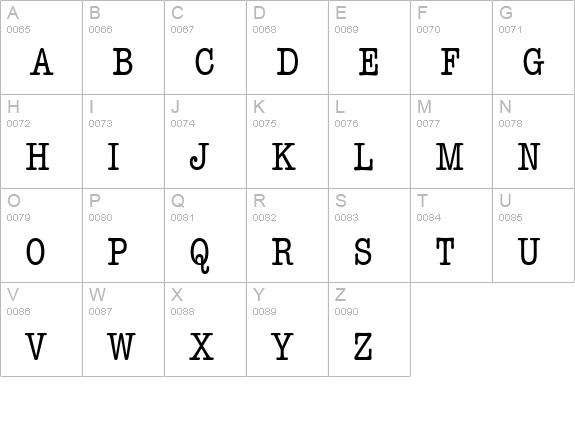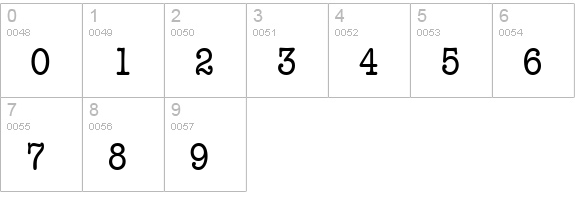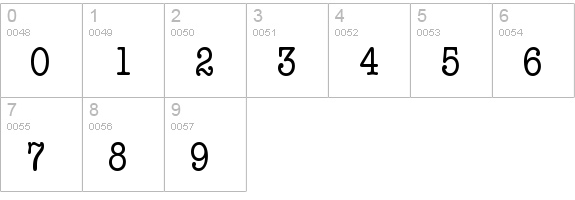
Keyboard Condensed SSi Condensed Font Details
Keyboard Condensed SSi Condensed is a distinctive, condensed-width variant in the Keyboard typeface family \xE2\x80\x94 well suited to design and typography projects.
Introducing Keyboard Condensed SSi Condensed font, the perfect choice for those seeking a sleek and streamlined typographic solution. This condensed typeface exudes an air of sophistication and modernity, making it ideal for various design projects such as branding, headlines, and advertising. Keyboard Condensed SSi Condensed font boasts a unique blend of elegance and versatility, making it suitable for a wide range of applications. Its condensed nature allows for maximum impact and readability, while maintaining a sense of refinement and professionalism. This font's sleek and minimalist design ensures that it effortlessly catches the eye, making a bold statement without overwhelming the viewer. Its clean lines and balanced proportions create a harmonious aesthetic, lending a sense of order and precision to any composition. The Keyboard Condensed SSi Condensed font is available in a variety of weights, allowing for endless creative possibilities. Whether you require a subtle and understated touch or a bold and impactful statement, this font has you covered. Best of all, Keyboard Condensed SSi Condensed font is available for free download at FontsMarket.com. This means that you can enhance your designs without breaking the bank. So why wait? Unlock the potential of your projects with Keyboard Condensed SSi Condensed font today.